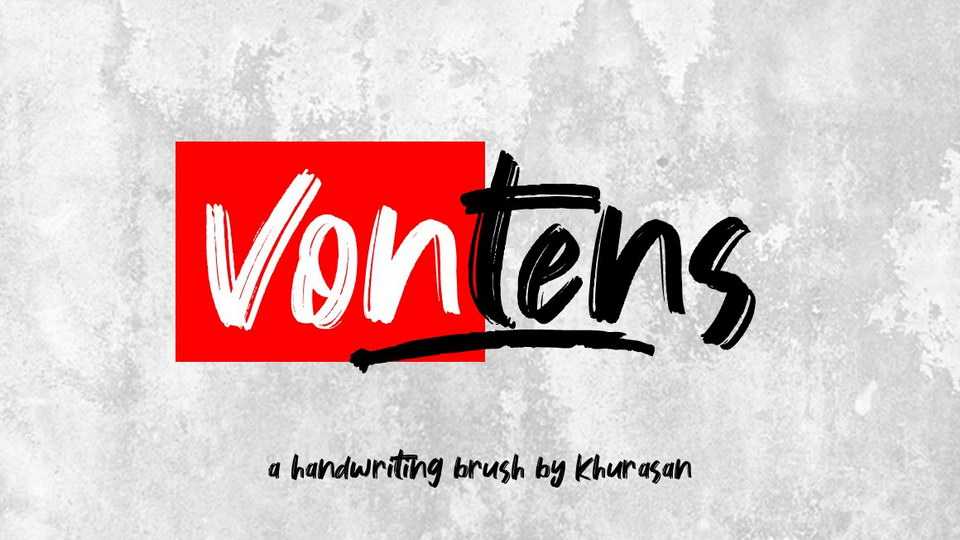
Download Vontens font, a bold textured handwritten font painted with a natural dry brush. Vonters script perfectly fits for posters, banners, headlines, t-shirts prints and more.